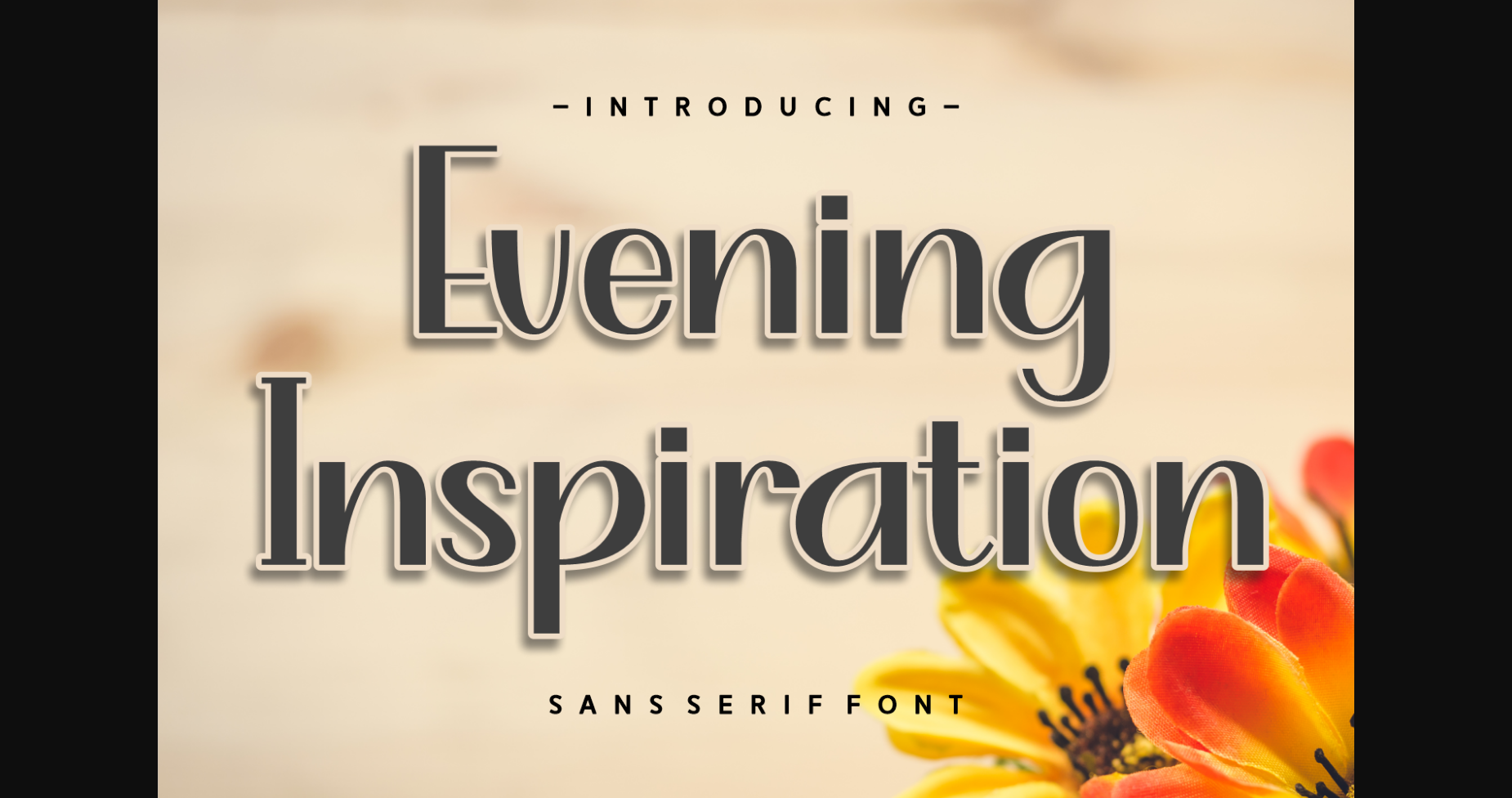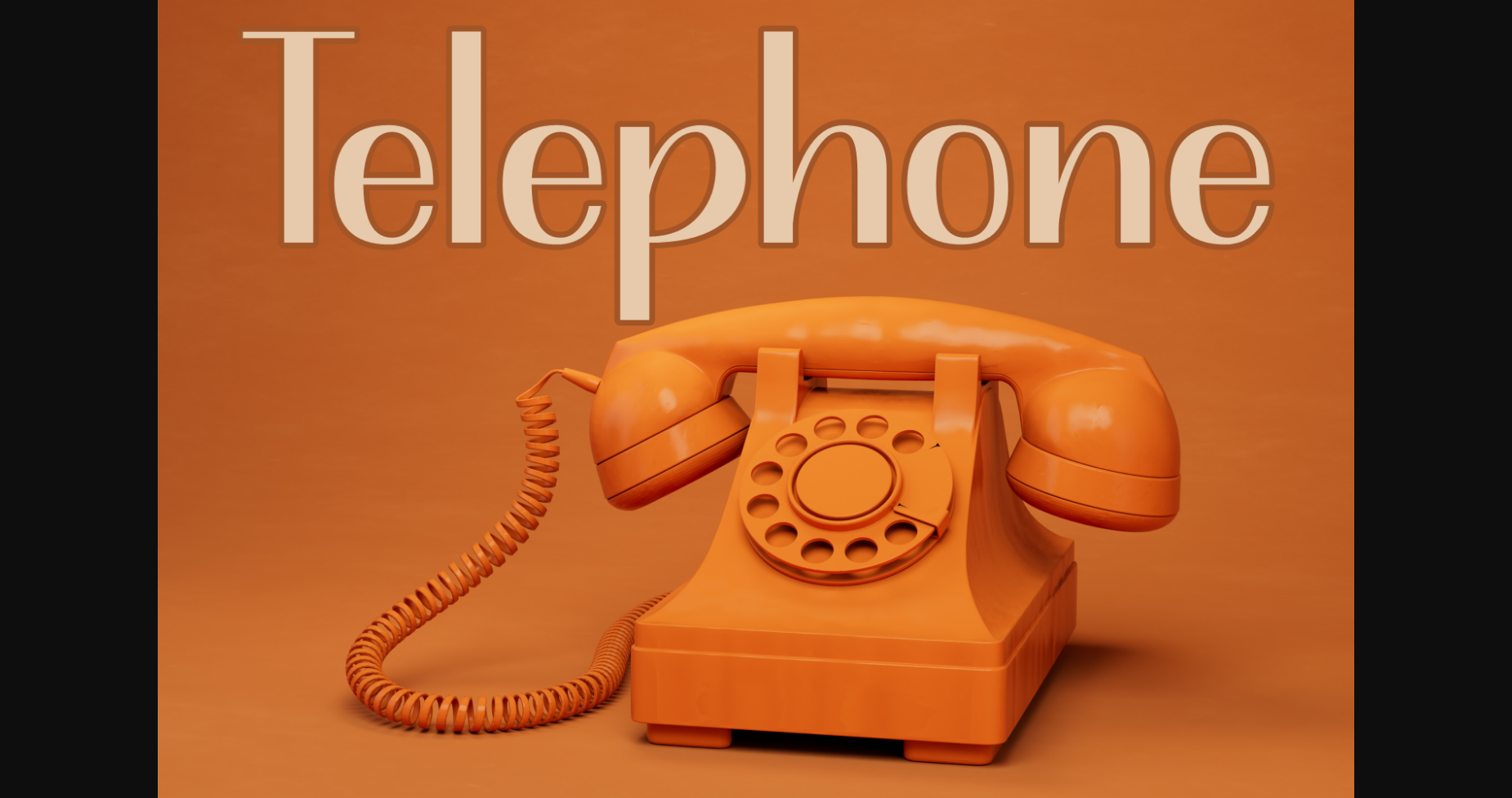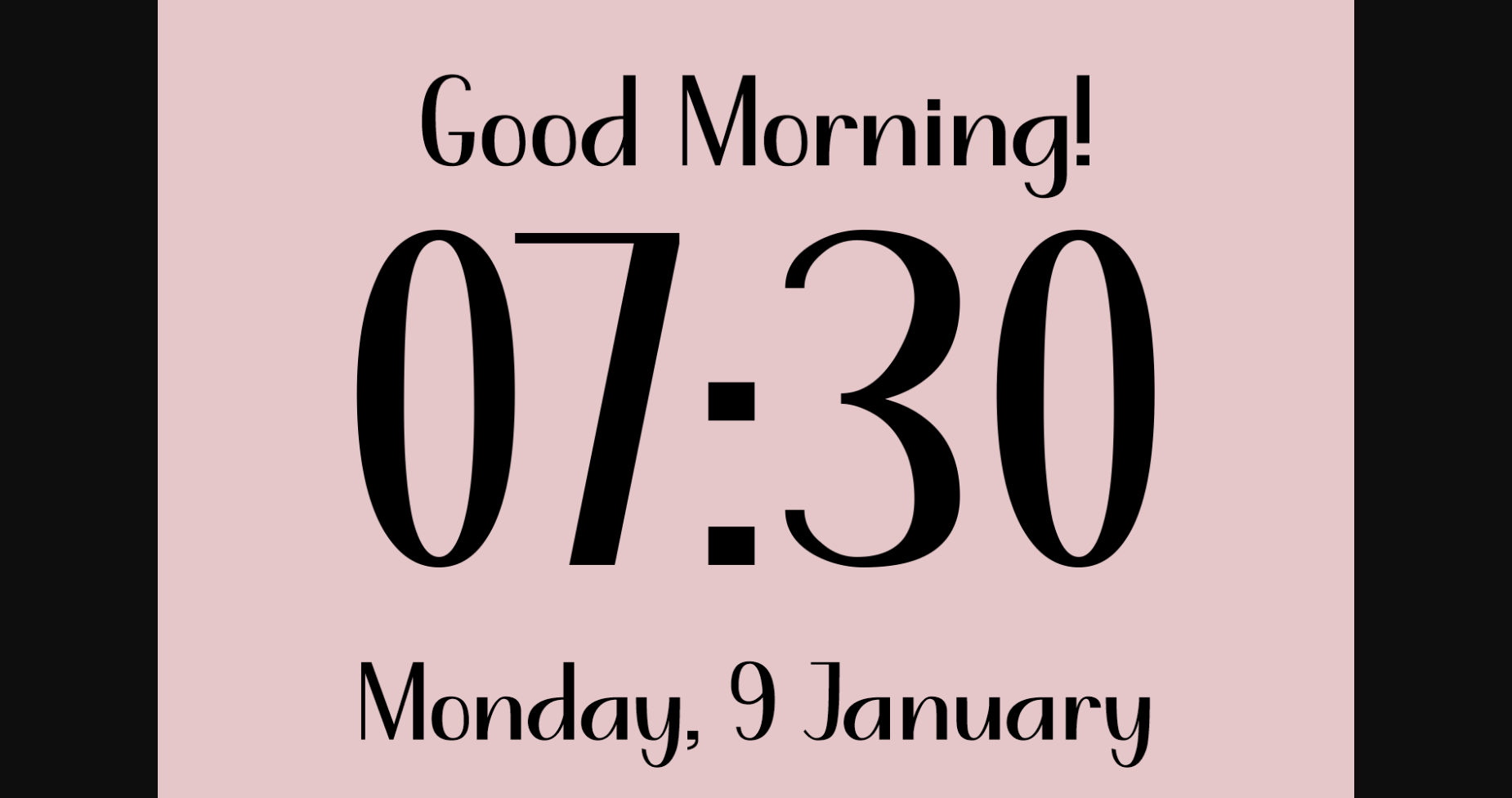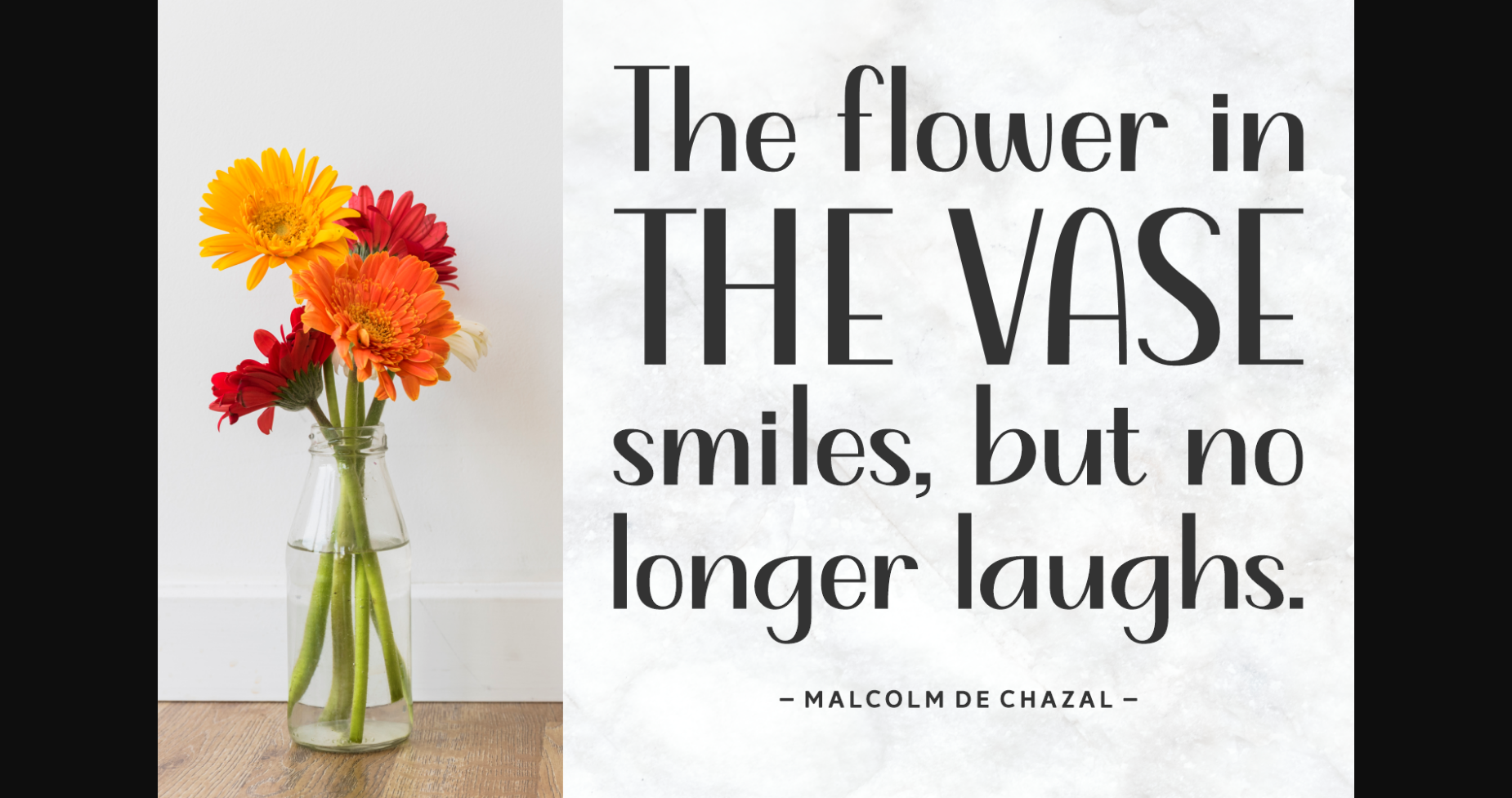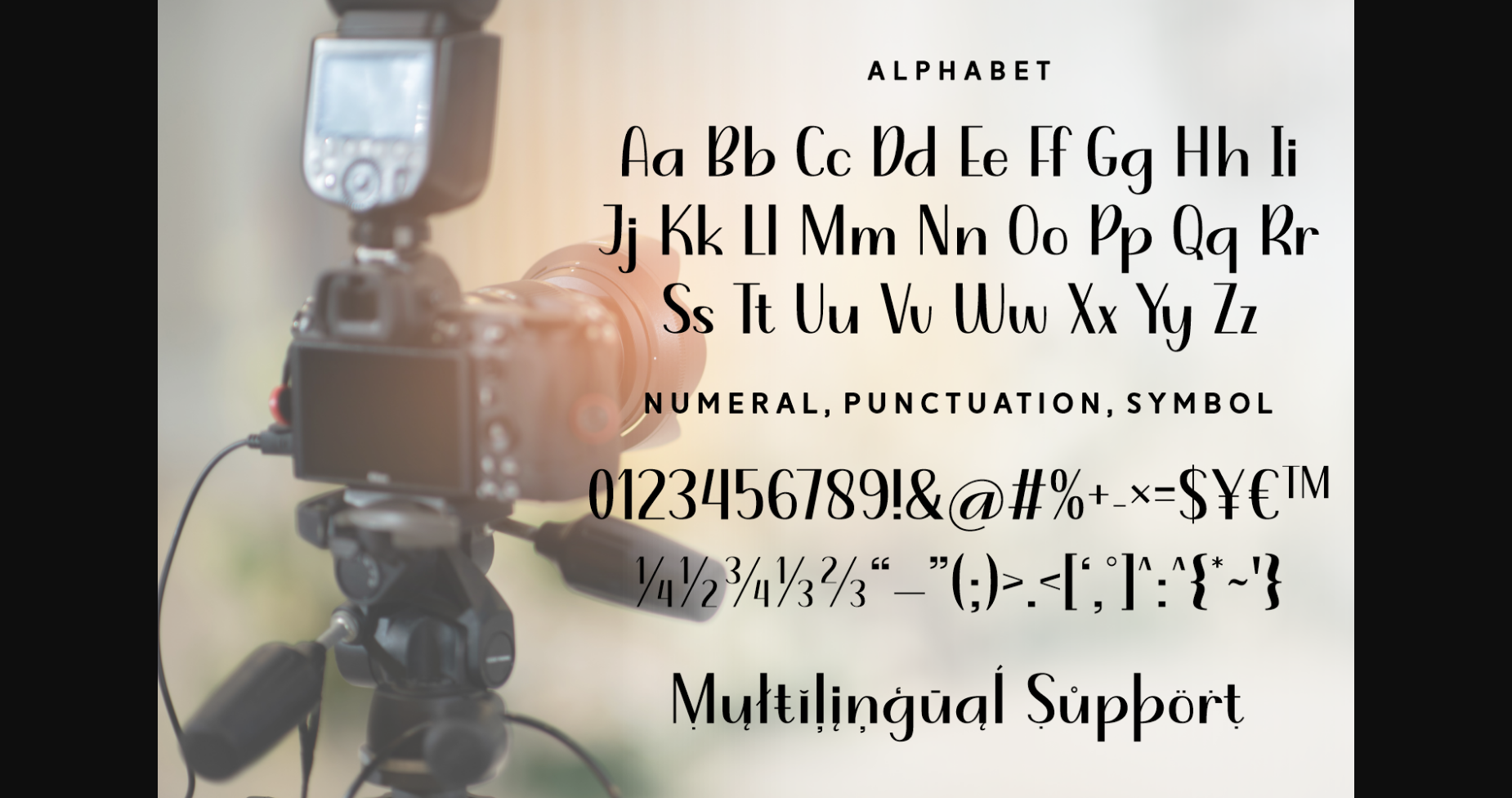
Evening Inspiration Font
About Evening Inspiration Font
Evening Inspiration is a clean and elegant sans serif font. Create modern and stylish typography with this fresh typeface that will suit a wide range of projects! Use it for invitations, posters, business cards, websites, covers, and more.